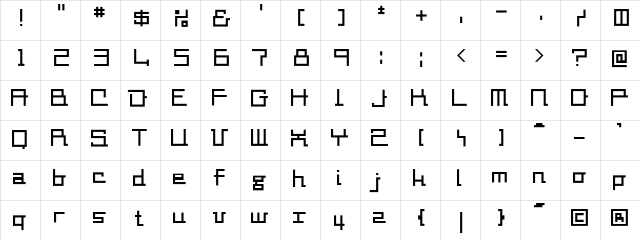
square-millimeter roboletter Regular
Design Context for square-millimeter roboletter Typeface
square-millimeter roboletter is a composed and adaptable typeface that performs quietly and consistently across a wide range of design contexts.